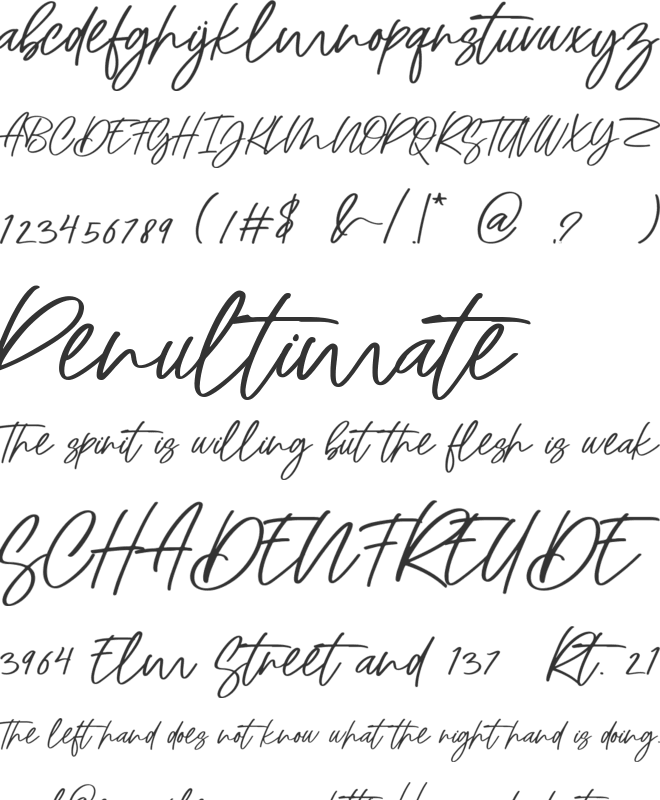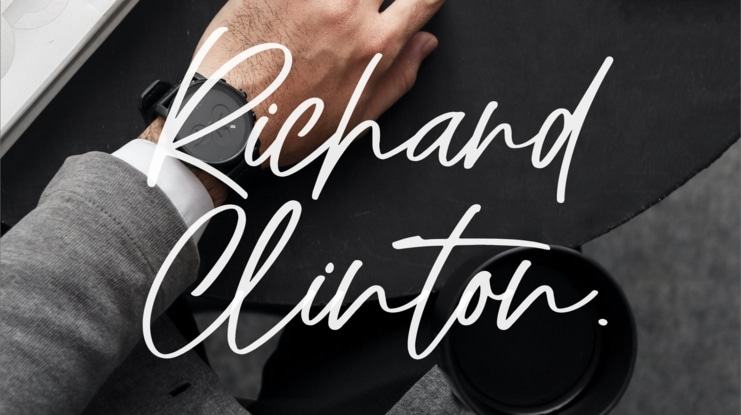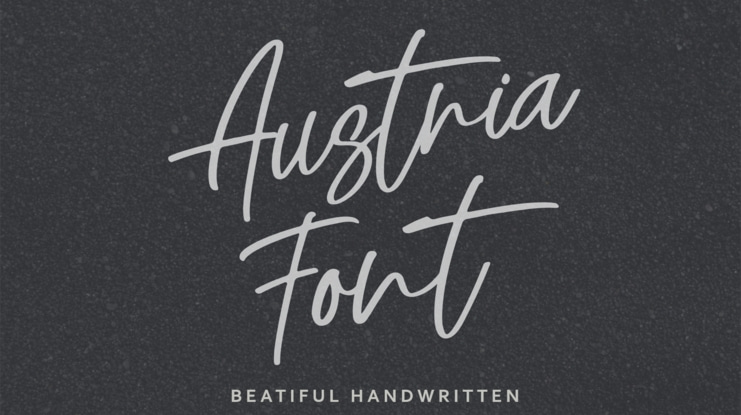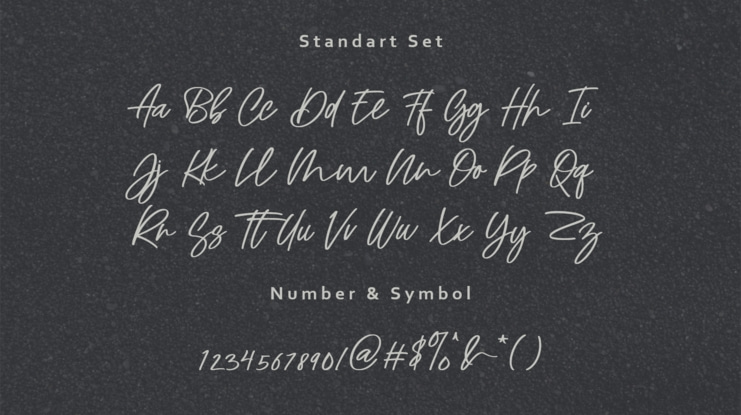
Austria Font
Austria Font, a handwritten script font inspired by natural and aesthetic hand touches.
Austria Font is flexible enough for web and print use and can be used in a wide variety of projects such as stationery, packaging, apparel, wedding stationery, prints, quotes, social media graphics, planners, greeting cards, logos, branding and much more. The script includes a set of uppercase, number, symbol, lowercase, ligature and alternative character sets